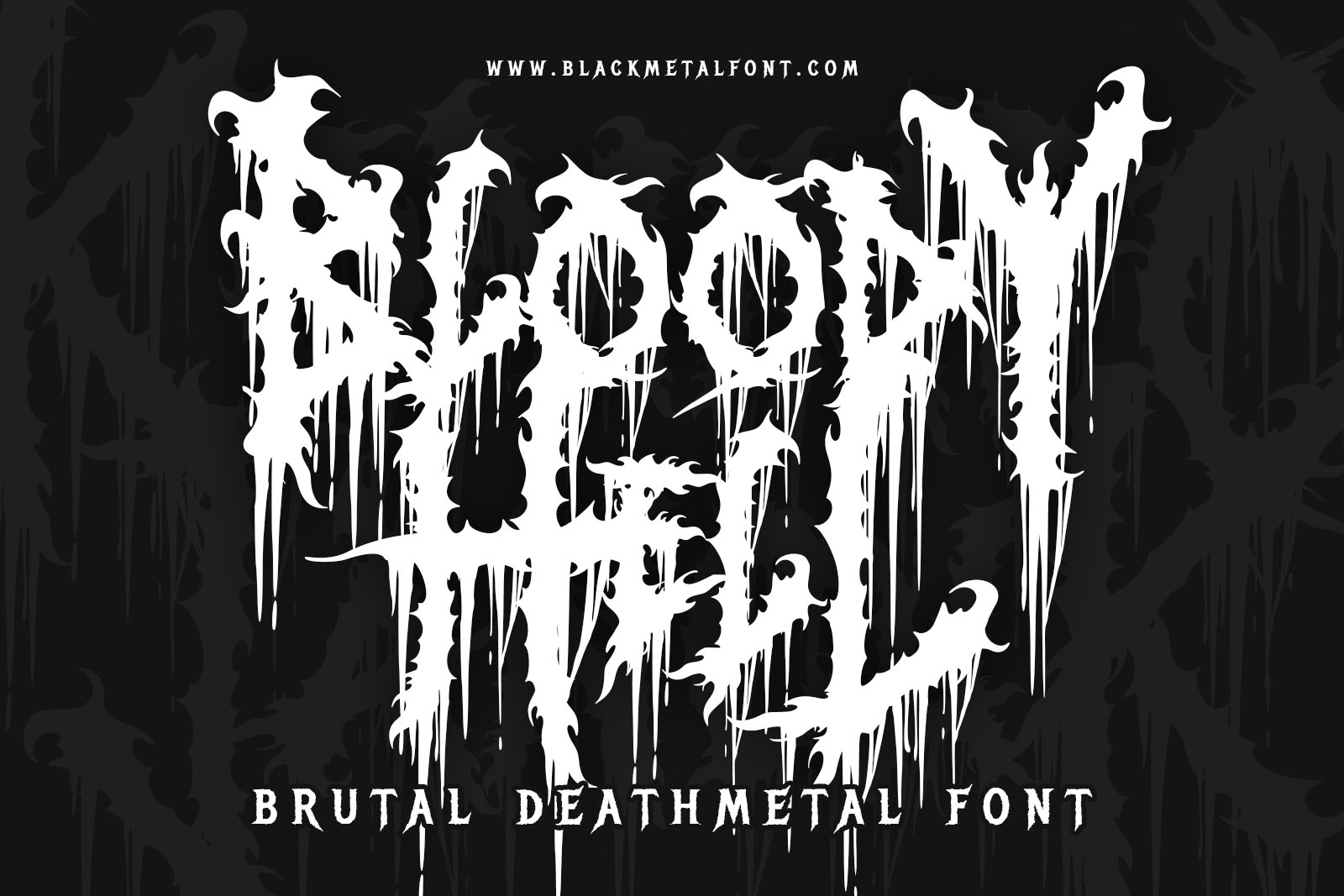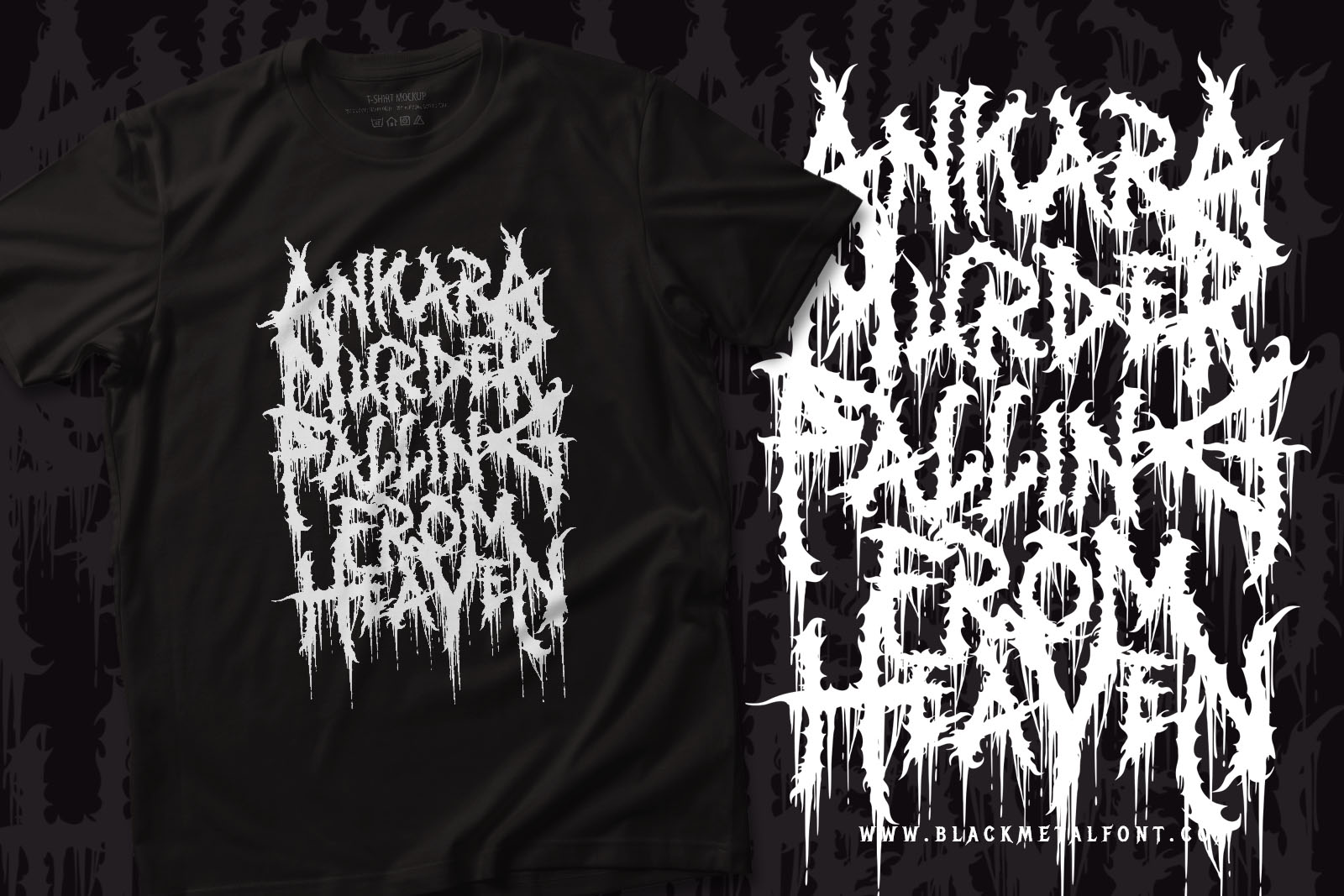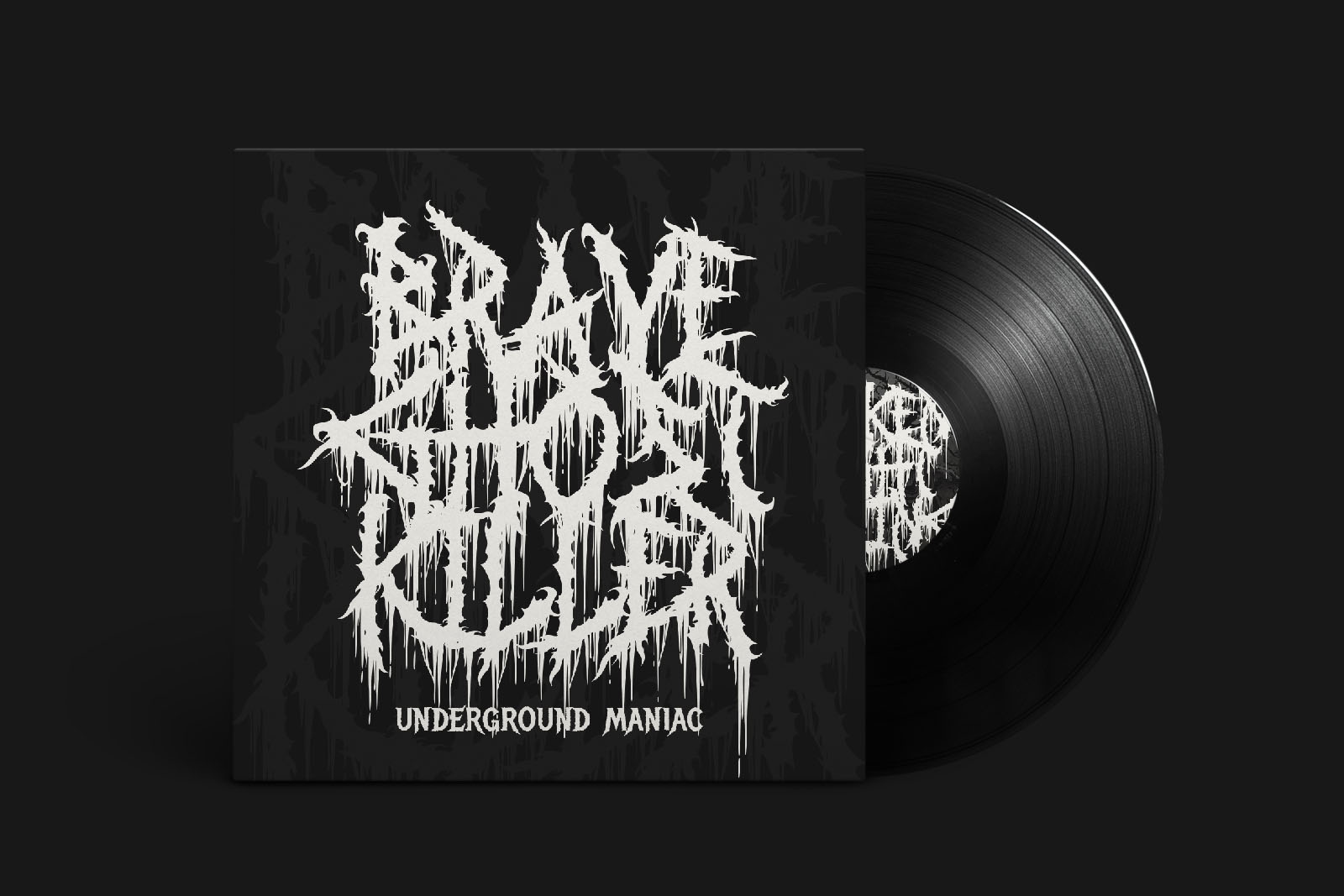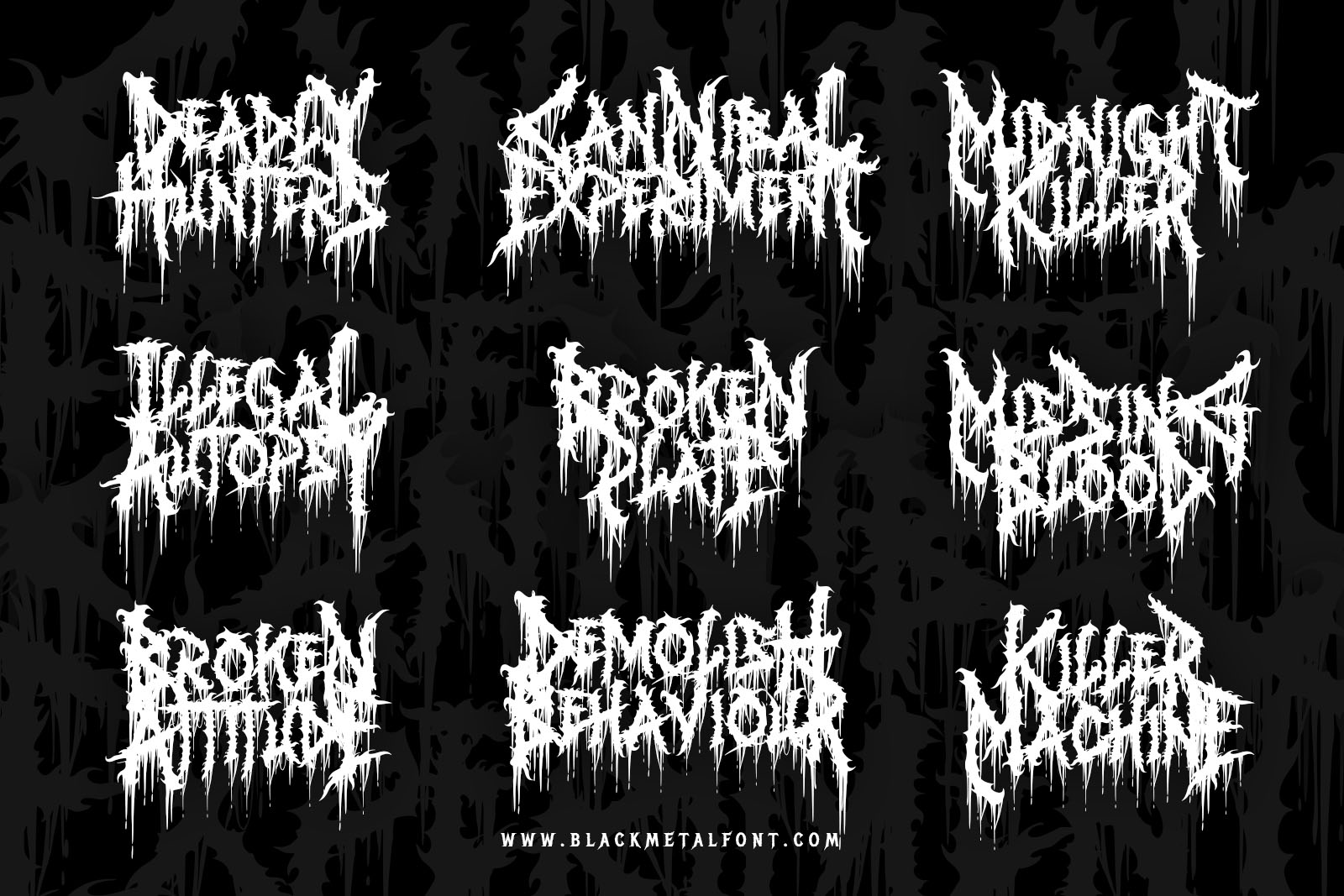
Bloody Hell
Bloody Hell is awesome horror font. Comes with Uppercase and lowercase characters. This font is great for any gore/metal/brutal design purposes. Bloody Hell is awesome for your logo, your band, for merchandise, for clothing, and movie title/poster